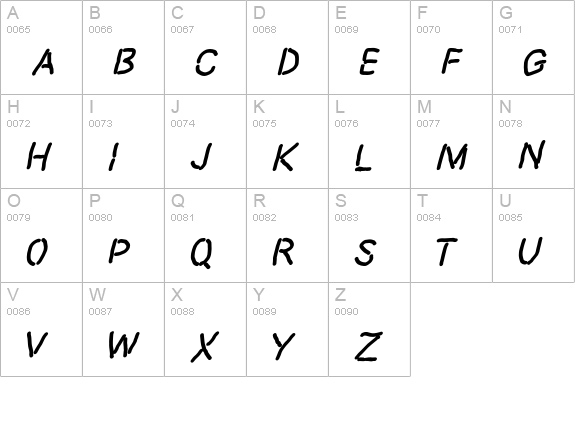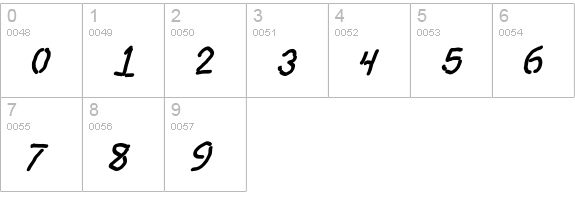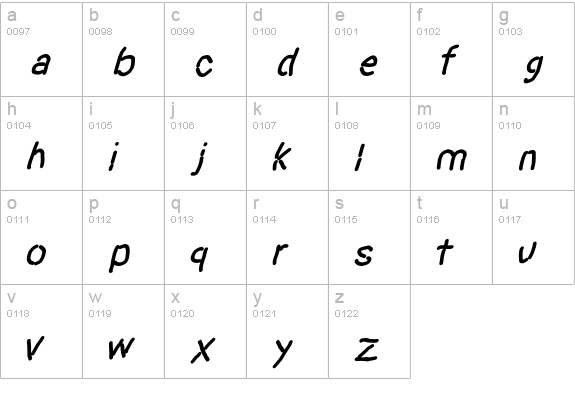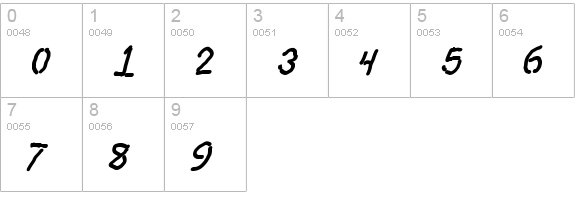
Dictator Italic is a distinctive, italic variant in the Dictator typeface family \xE2\x80\x94 well suited to design and typography projects.
Dictator Italic is a bold and commanding font that exudes power and authority. Its sleek and slanted design adds a touch of sophistication, making it perfect for projects that require an air of dominance. With its strong, sharp lines and distinct letterforms, Dictator Italic demands attention and leaves a lasting impression. What sets Dictator Italic apart is not just its impressive aesthetics, but also its availability for free download. That's right – this exceptional font can be freely obtained at FontsMarket.com. Whether you're a designer, a marketer, or simply someone looking to add a touch of elegance to your personal projects, Dictator Italic is at your disposal, without any cost. Dictator Italic enables you to make a bold statement, standing out from the crowd and making your message heard. It is versatile and adaptable, lending itself to a wide range of design applications, from headlines and logos to posters and packaging. Its clean and legible characters ensure readability, while its unique style adds a touch of flair. With Dictator Italic, you have the power to convey your message with confidence and style. So why wait? Head over to FontsMarket.com and unleash the commanding presence of Dictator Italic in your designs. Download it for free today and bring your projects to life with this impressive font.